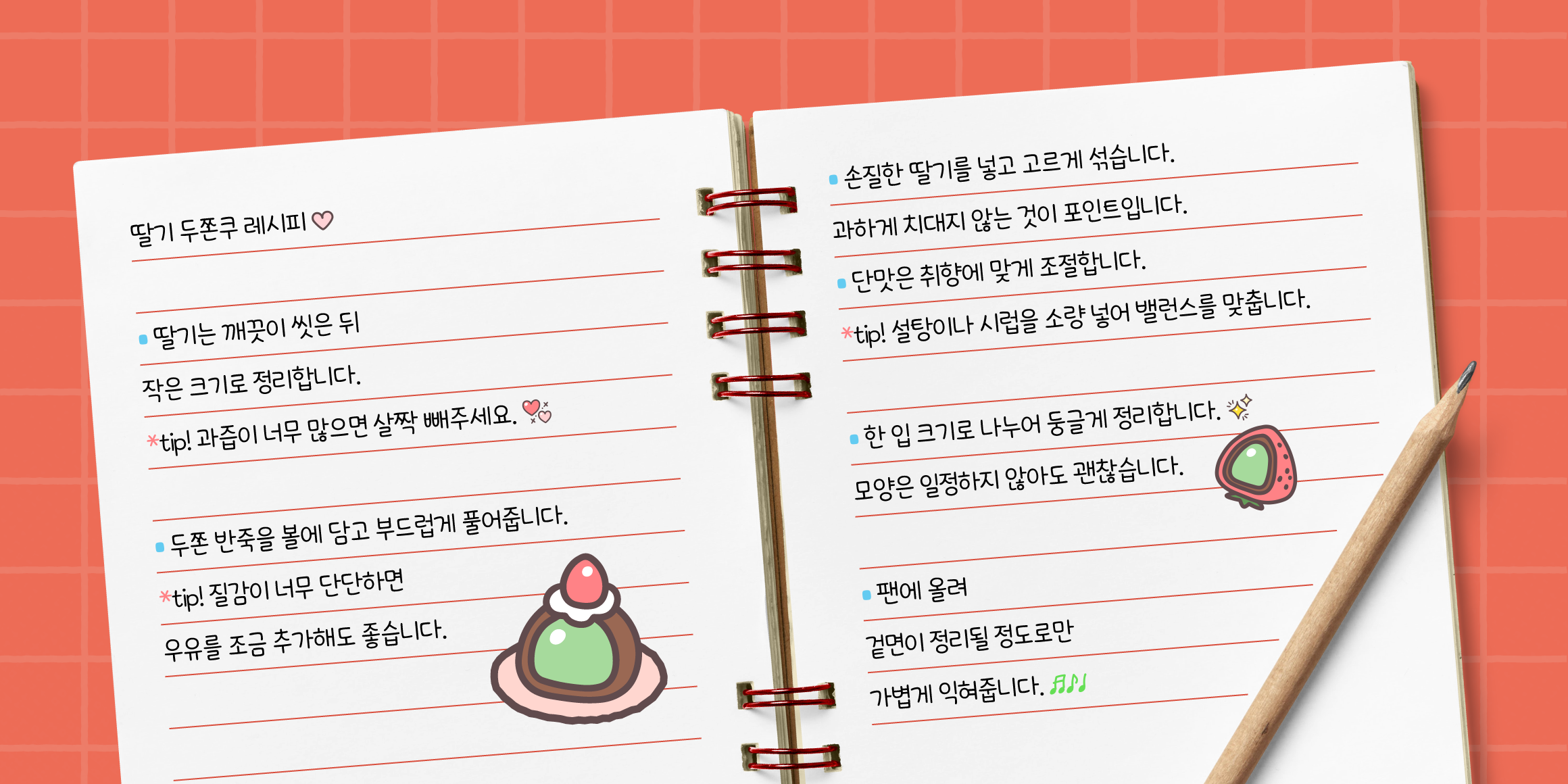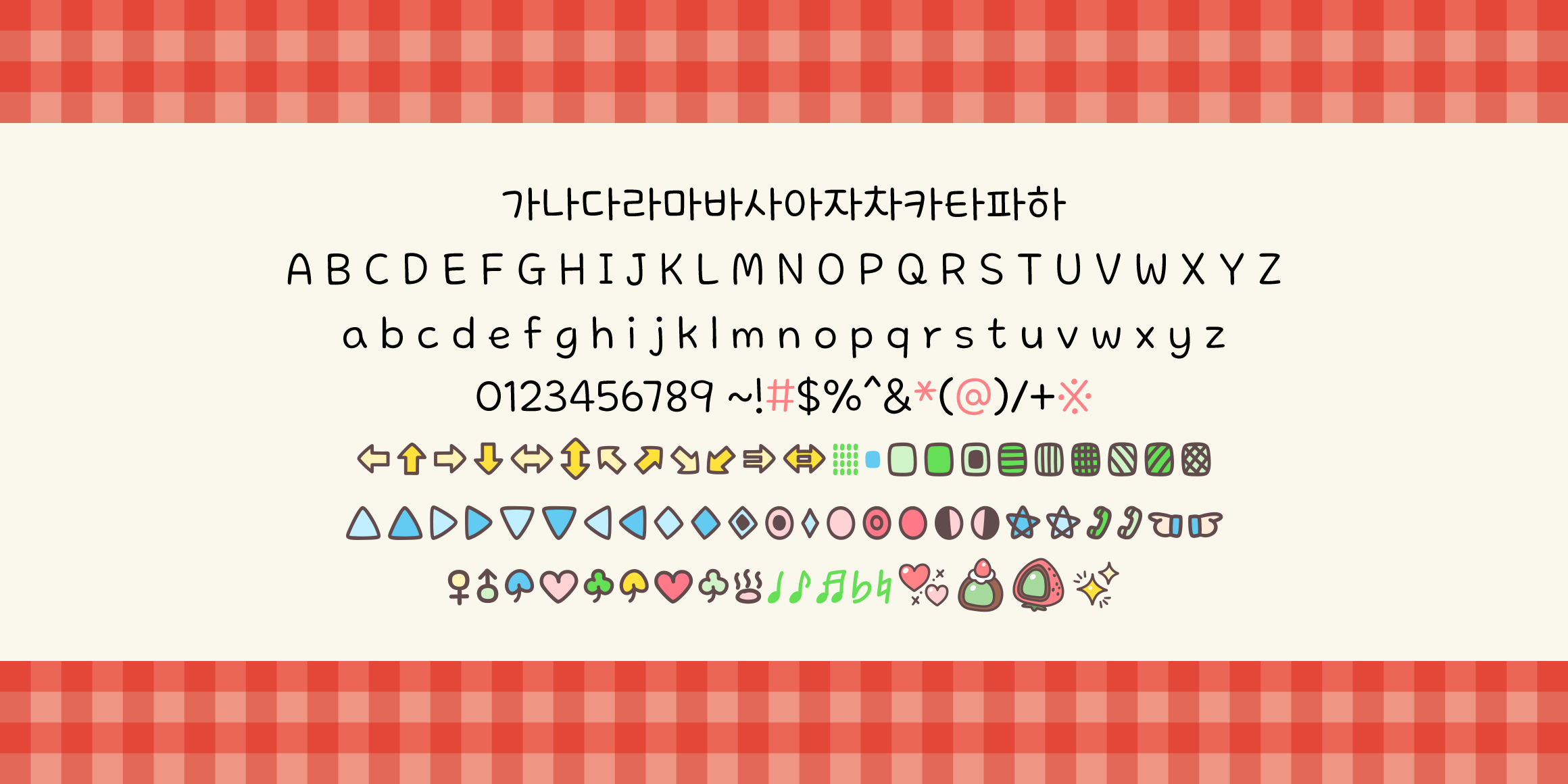
It’s the kind of sweetness that keeps you coming back for more.
Like a soft and round Duchewcoo treat, each stroke features gentle, bouncy curves, while the neatly arranged letters create a sense of balance and stability.
The slightly lifted shapes in ㅈ and ㅊesemble the stretchy, chewy texture you get when taking a bite of a freshly made Duchewcoo.
- If you type ;), ;>, :!: and :?: the note on stars will appear!
- Support colorful dingbat in#*@※←↑→↓↔↕↖↗↘↙⇒⇔▒■□▣▤▥▦▧▨▩▲△▶▷▼▽◀◁◆◇◈◉◊○◎●◐◑★☆☎☏☜☞♀♂♠♡♣♤♥♧♨♩♪♬♭♮.
- In environments that do not support color dingbats, they will be displayed in black and white.
- Support Latin, Japanese(hiragana,katakana), and Cyrillic characters.